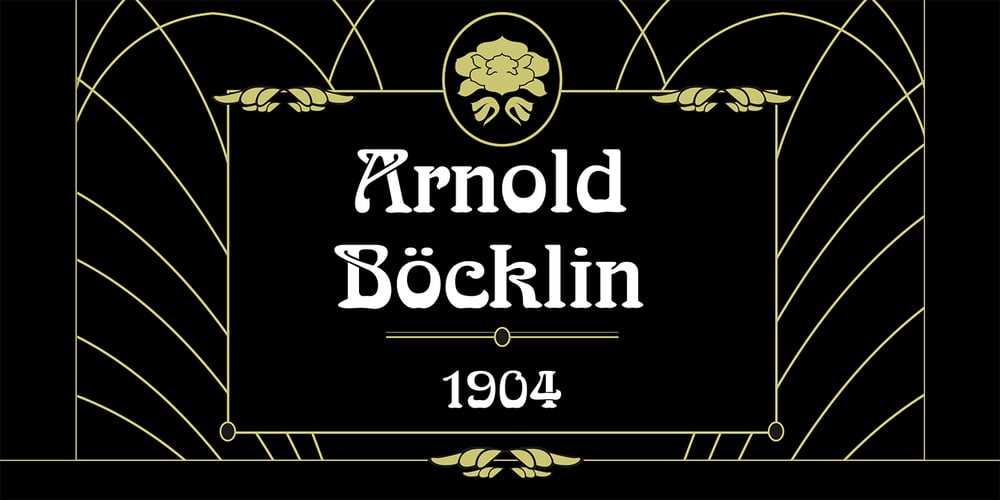
Arnold Boecklin Font Family was designed by Otto Weisert and published by Linotype. Arnold Boecklin contains 1 styles and family package options. The font, Arnold Boecklin, appeared in 1904 with the font foundry Otto Weisert. Traces of the floral forms of the Jugendstil can still be seen in this typeface. Alphabets of this type were mainly meant for larger point sizes, as on posters. A decorative feel was much more important than legibility, and Arnold Boecklin was of particular importance to the book design of the Jugendstil movement. Today the font is often used to remind people of “the good old days”.